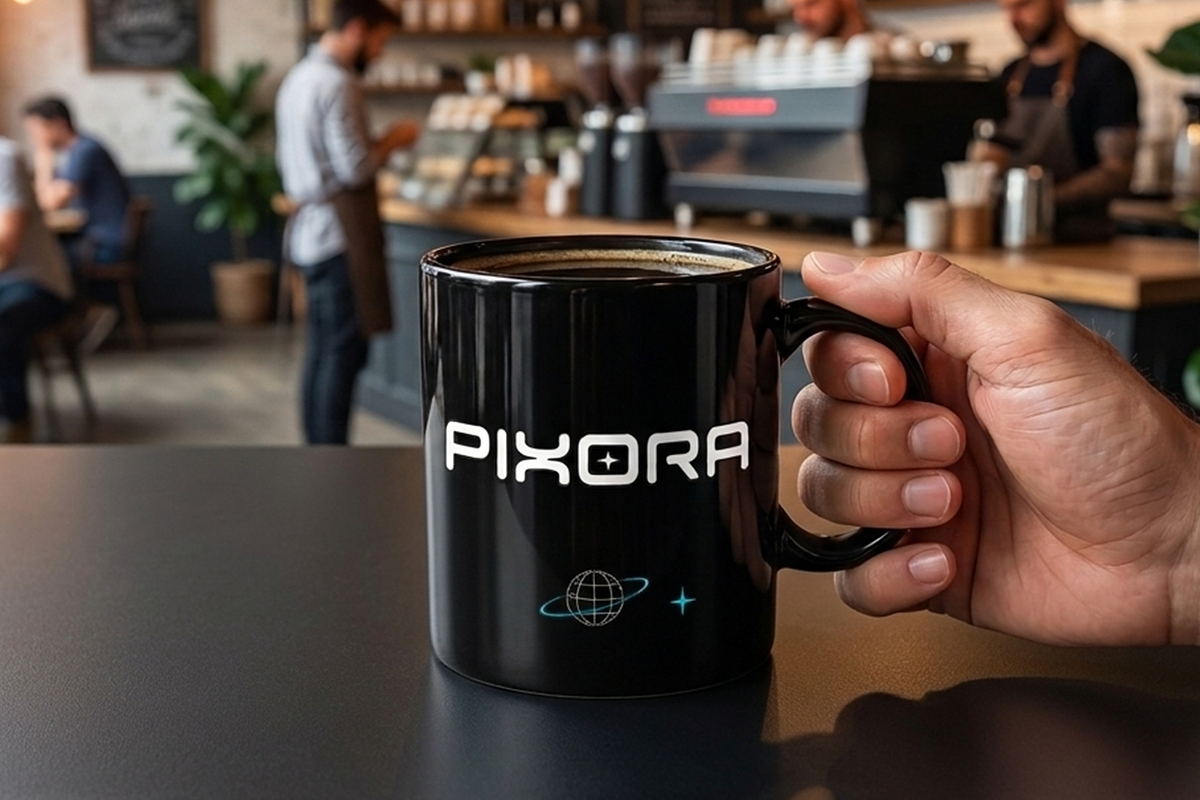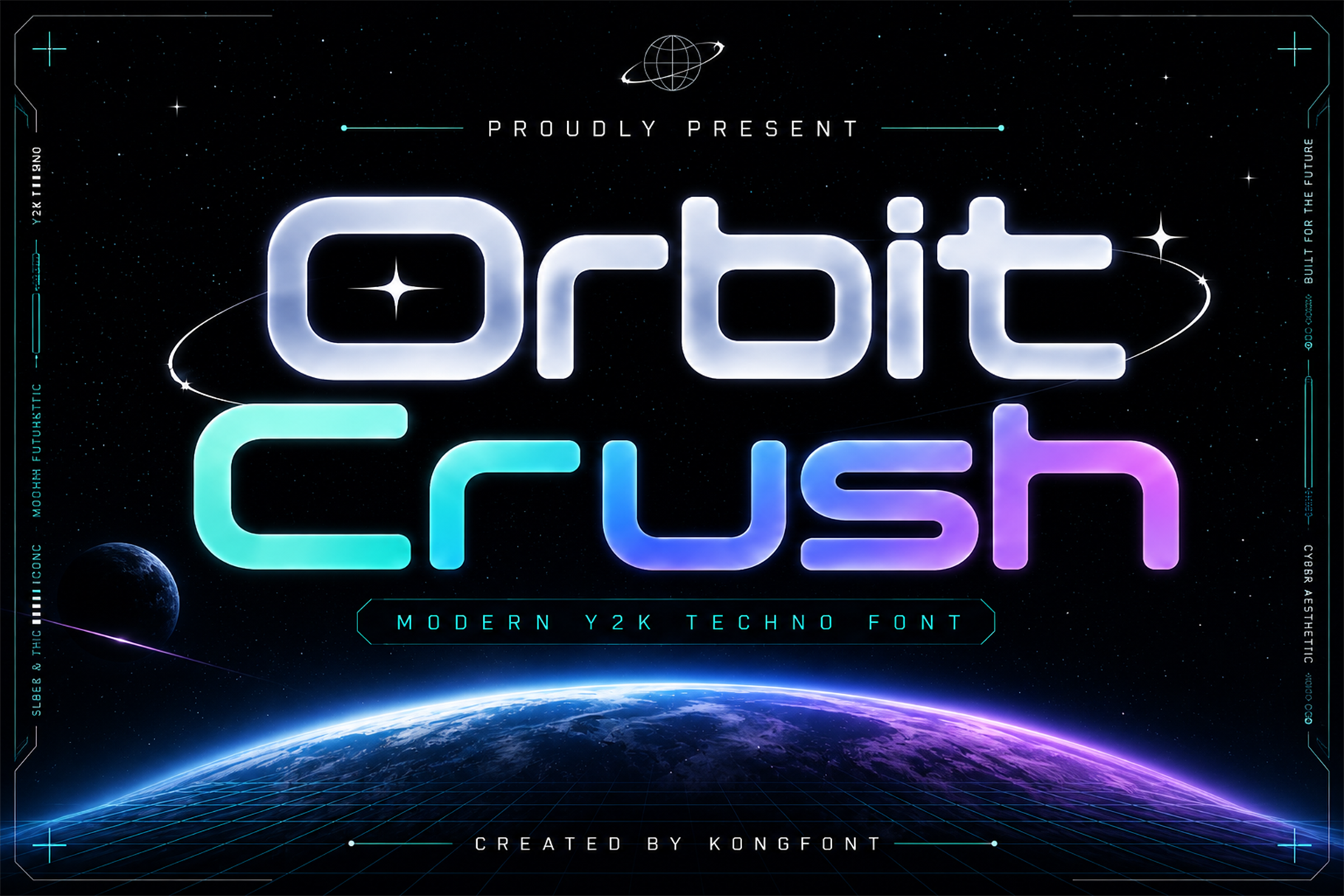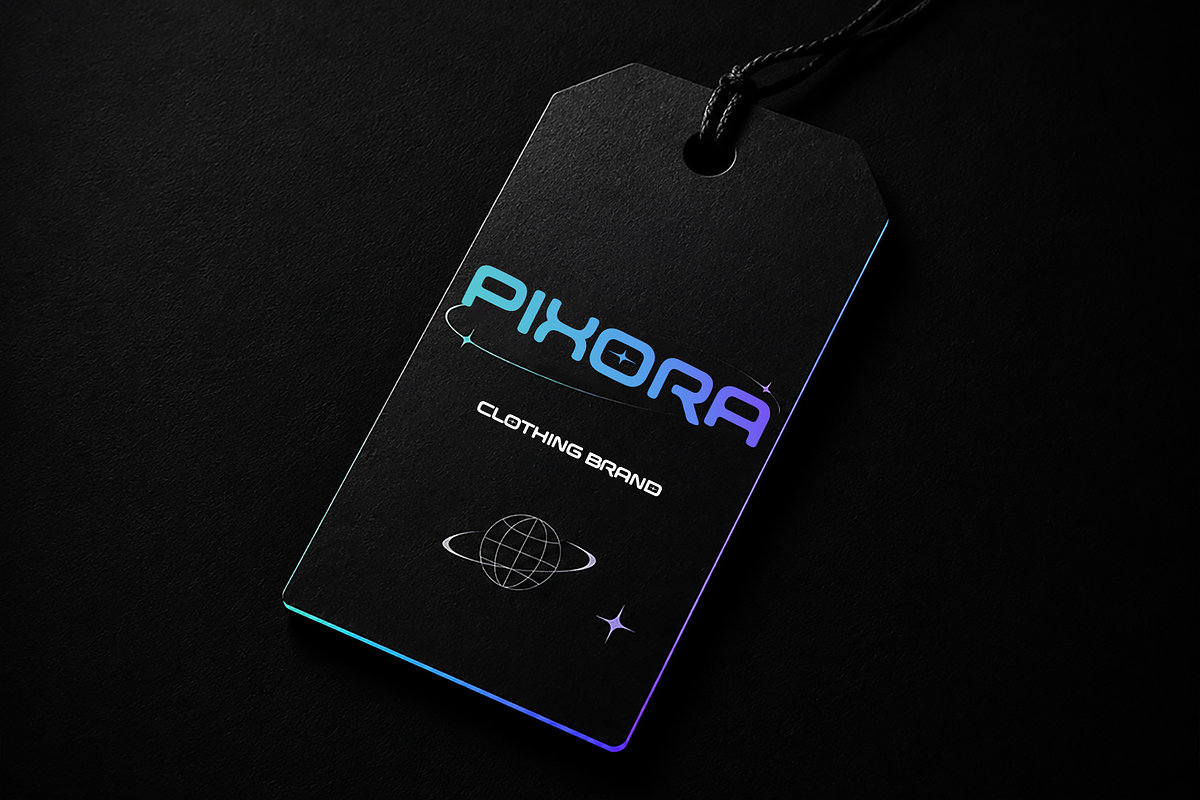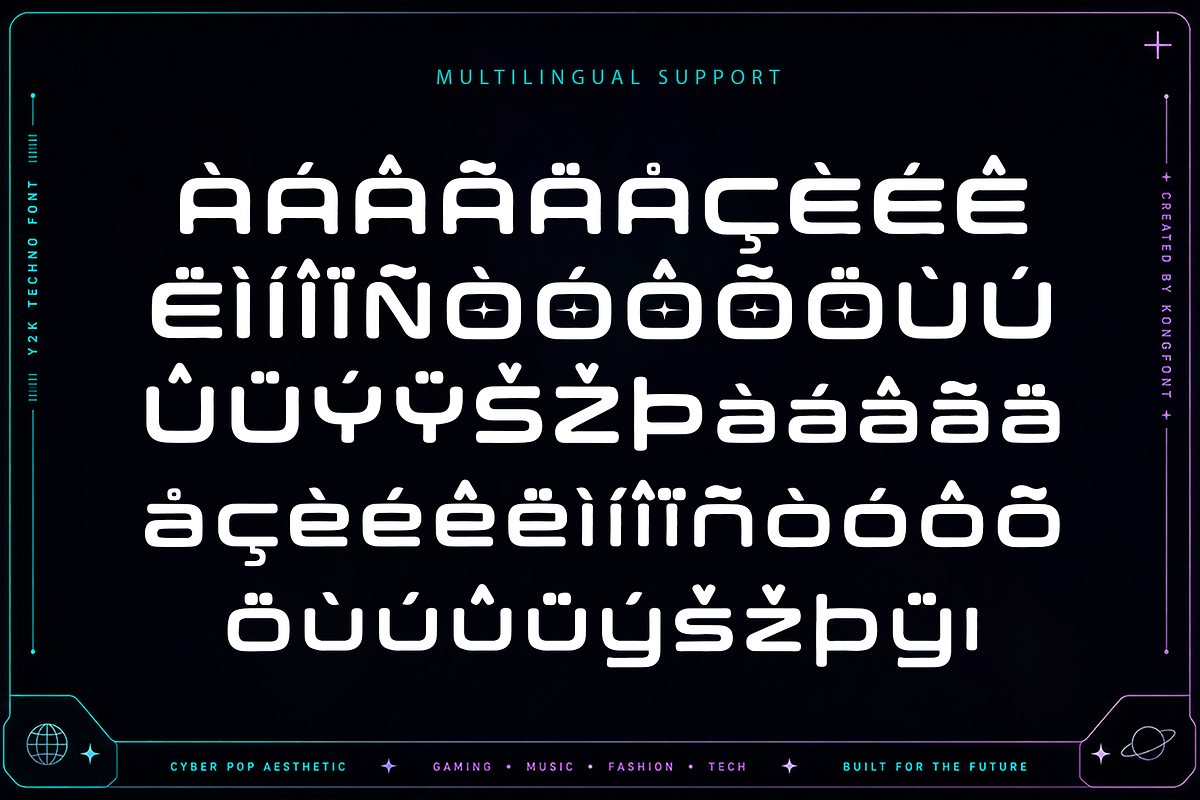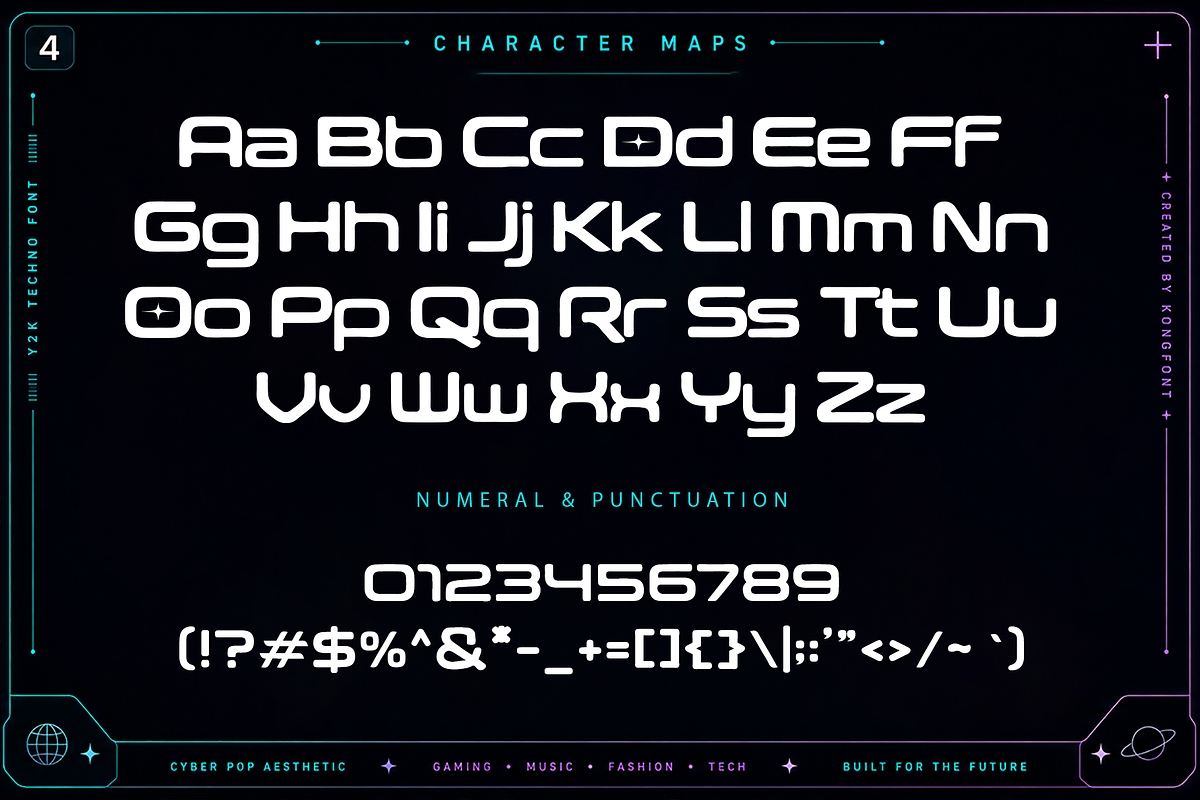
Orbit Crush - Modern Y2K Techno Font
Meet Orbit Crush, a modern Y2K techno font inspired by the bold digital aesthetics of the early 2000s and the futuristic vision of tomorrow. Featuring sharp geometric forms, sleek techno styling, and eye-catching futuristic details, this typeface captures the iconic Y2K era while delivering a fresh and contemporary edge. Its dynamic appearance makes it the perfect choice for projects that demand innovation, energy, and a strong visual impact.
Designed for versatility and performance, Orbit Crush includes uppercase and lowercase characters, numerals, punctuation, symbols, and multilingual support. Its futuristic structure maintains excellent readability while preserving the distinctive techno aesthetic that defines the Y2K design movement. Perfect for both print and digital applications, it offers endless creative possibilities.